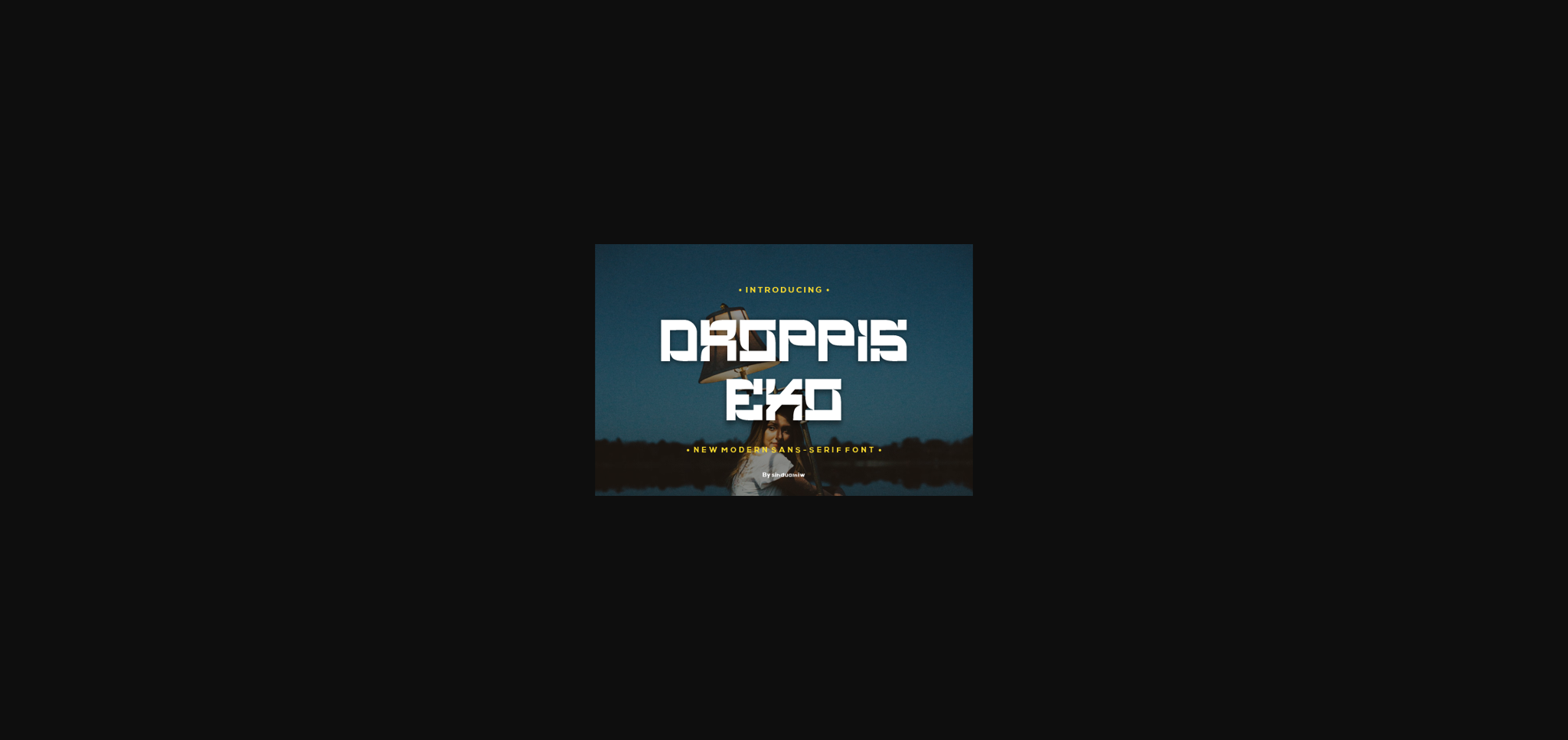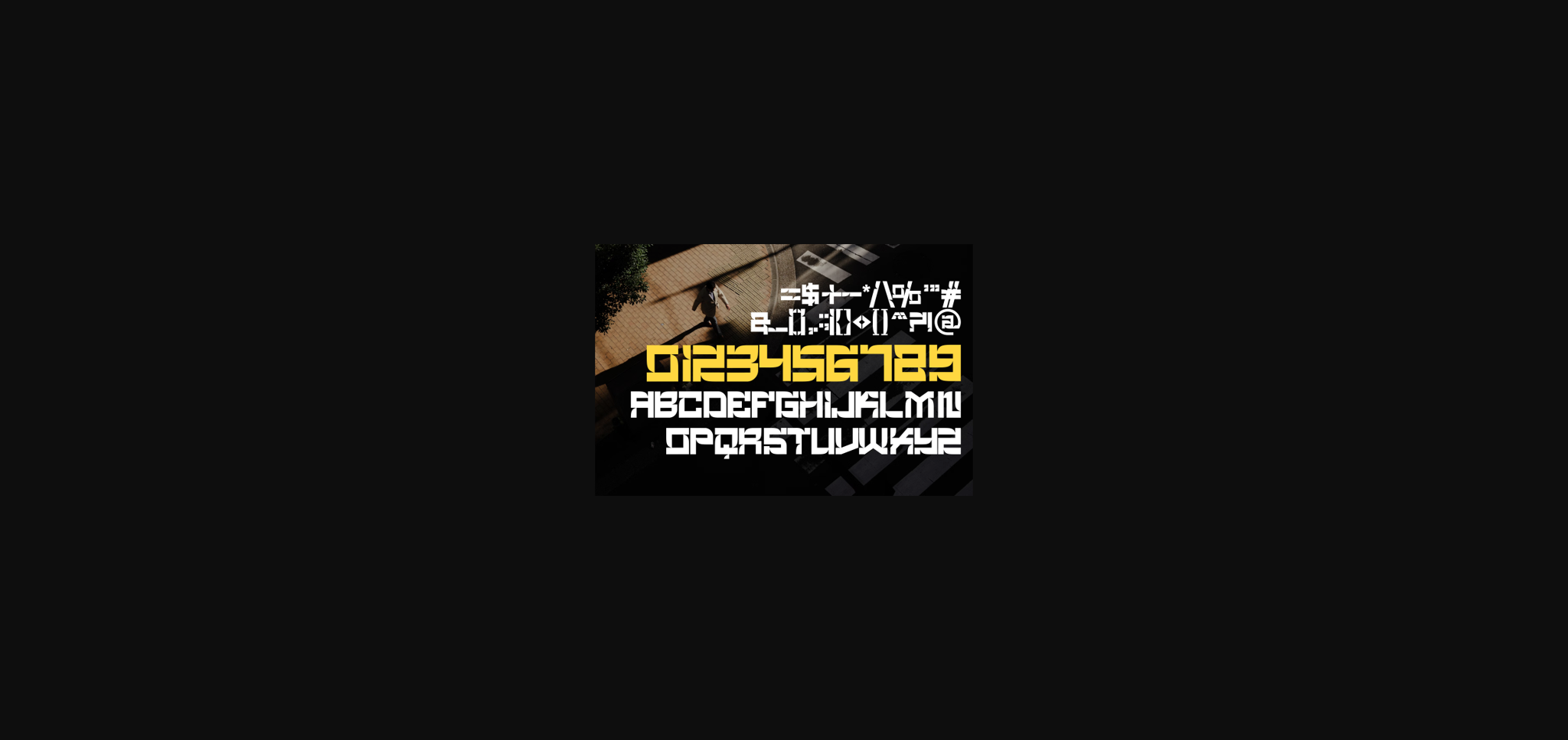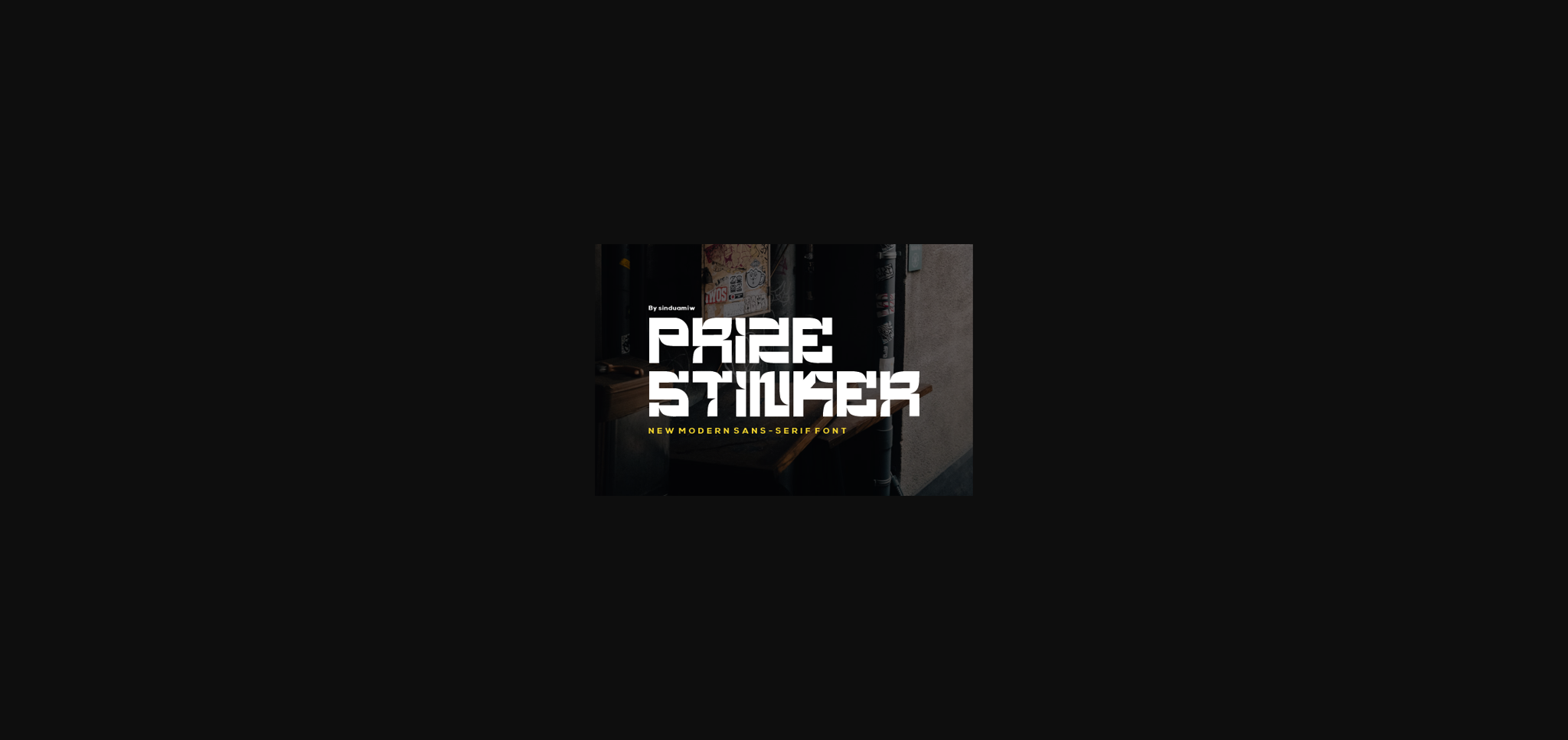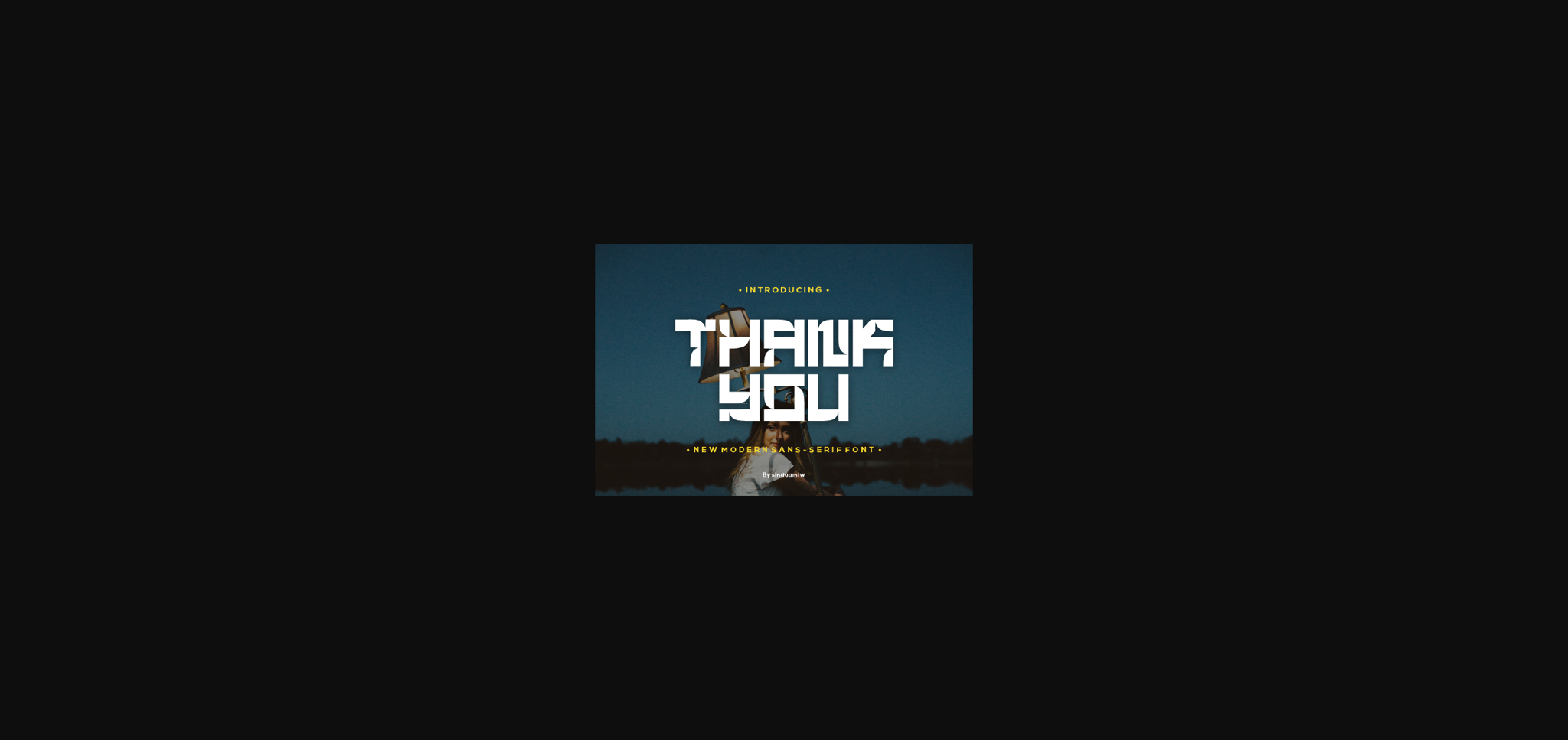
Droppis Exo Font
About Droppis Exo Font
A sans serif display font is a typeface without serifs specifically designed for use in large sizes in graphic design. Unlike regular sans serif fonts, this font has a more dramatic appearance, highlighting its design elements to create a strong visual impact.